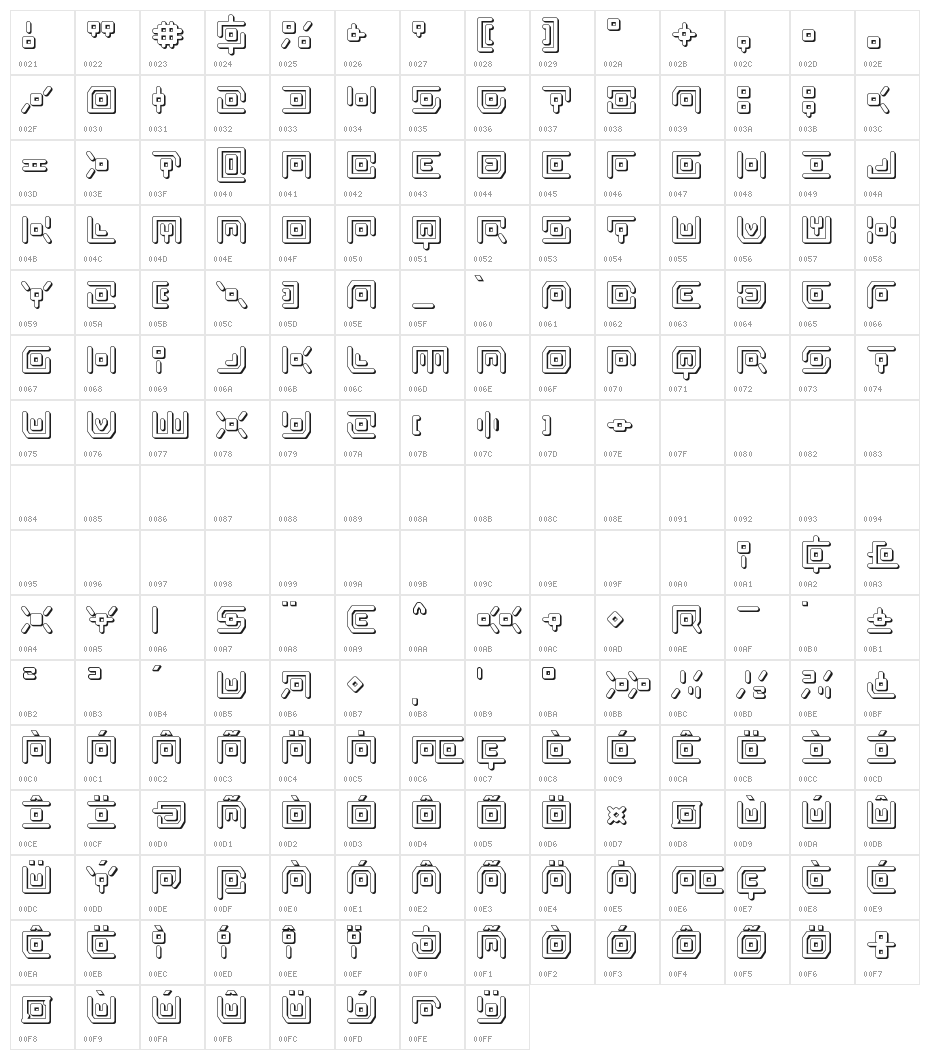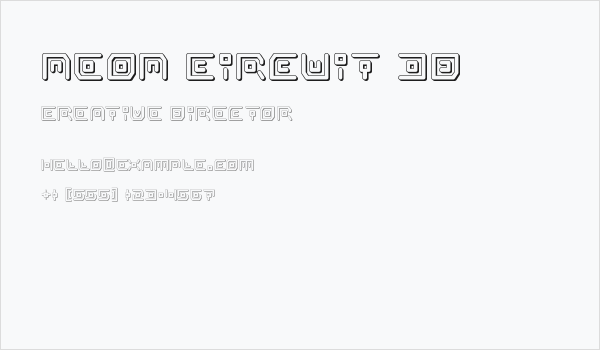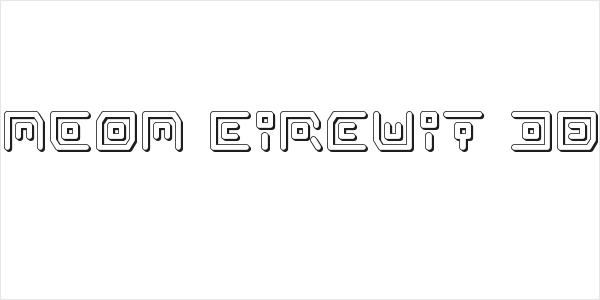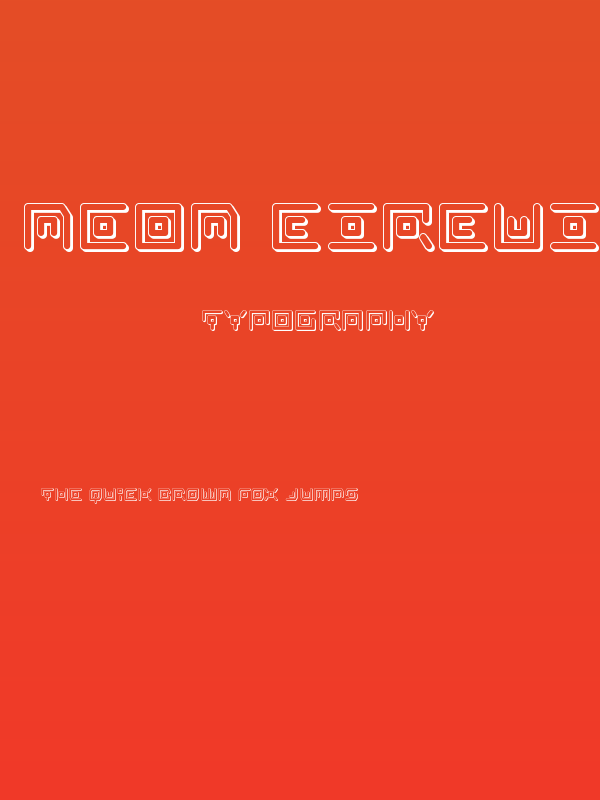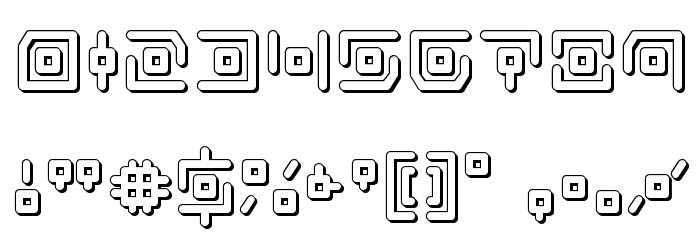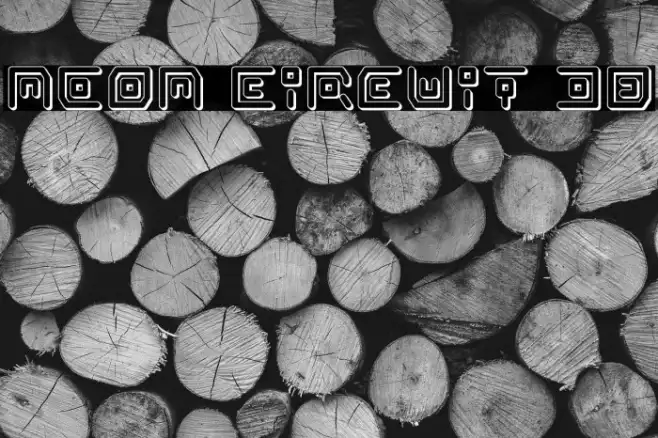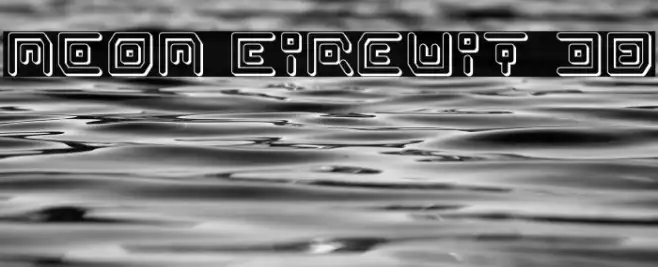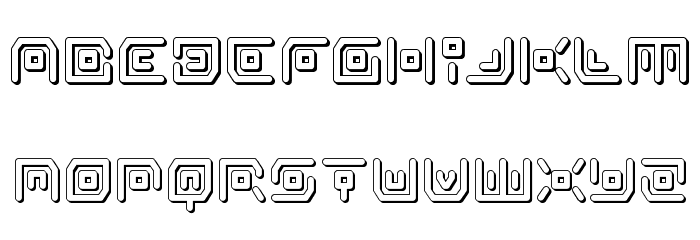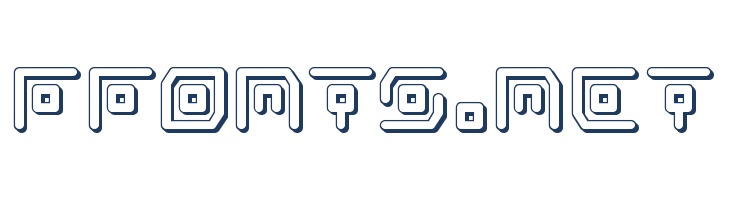
Neon Circuit 3D Font
This font features a futuristic and digital aesthetic, reminiscent of neon lights and circuit board patterns. Each character is designed with a bold outline and intricate inner detailing, creating a three-dimensional effect. The geometric shapes and angular lines give it a high-tech, modern look, suitable for projects that require a cutting-edge or sci-fi theme. The font maintains a consistent style across uppercase, lowercase, numbers, and special characters, ensuring a cohesive appearance.
| Proposed Projects | Ideal for technology-themed posters, video game graphics, sci-fi book covers, and digital art projects. |